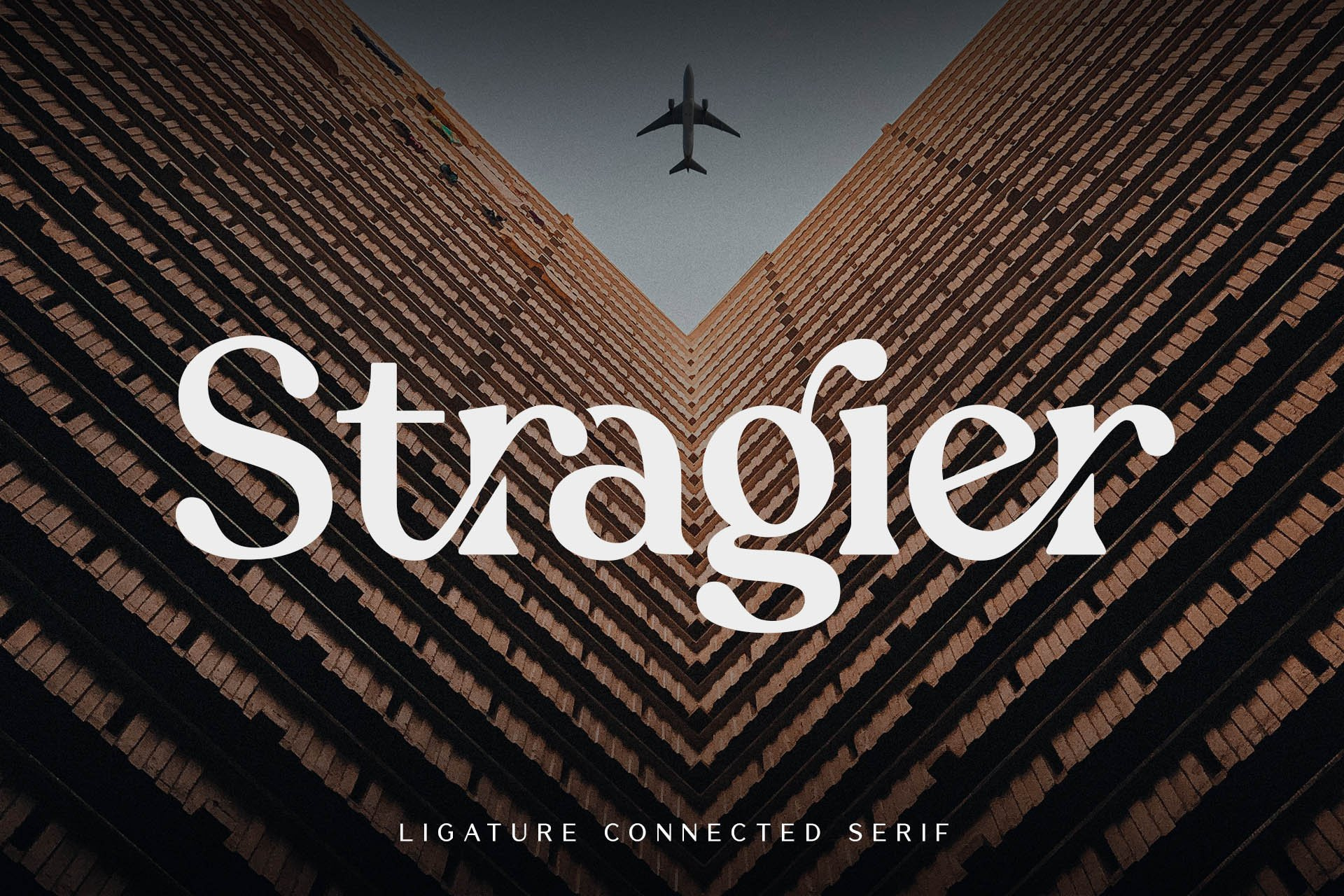
Stragier - Ligature Connected Serif Font
Introducing "Stragier" Display Ligature Serif, a modern serif font with a stylish touch inspired by the famous minimalist logo and Stragier is perfect for the purposes of designing templates, brochures, videos, advertising branding, logos and more.